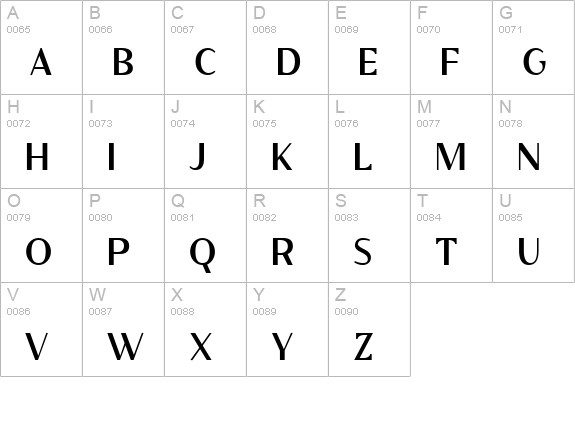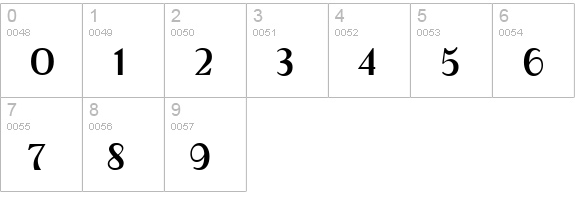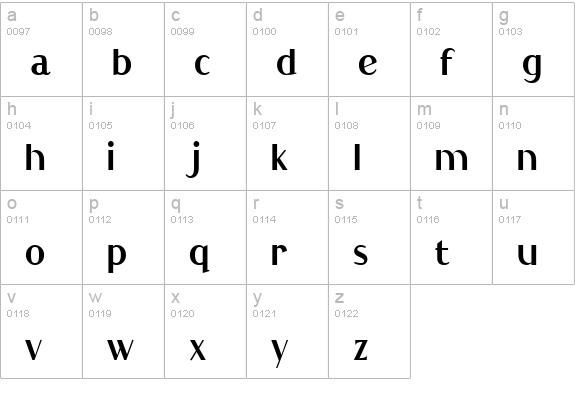
Qualettee Bold Font Details
Qualettee Bold is a strong, high-contrast variant in the Qualettee typeface family \xE2\x80\x94 well suited to headlines, attention-grabbing titles, and strong calls-to-action.
Introducing Qualettee Bold, a font that effortlessly combines elegance and modernity to bring your projects to life. With its bold and strong presence, Qualettee Bold is perfect for creating eye-catching headlines, logos, and branding materials that demand attention. This unique typeface showcases a perfect balance between thick and thin strokes, resulting in a truly striking and captivating design. Each letter is meticulously crafted to exude a sense of confidence and sophistication, making Qualettee Bold an ideal choice for luxury brands, fashion magazines, and upscale designs. With its versatility and versatility, Qualettee Bold can be used across a wide range of projects, from print to digital media. Its clean and crisp lines ensure legibility at any size, making it suitable for both large-scale advertisements and small-scale designs. And the best part is, Qualettee Bold is freely available to download at FontsMarket.com. This means you can elevate your designs without breaking the bank. Whether you're a professional designer or a passionate hobbyist, Qualettee Bold grants you the opportunity to make a lasting impression with its bold and impactful style. So why wait? Experience the power of Qualettee Bold and take your designs to new heights. Download it for free at FontsMarket.com and let your creativity soar.